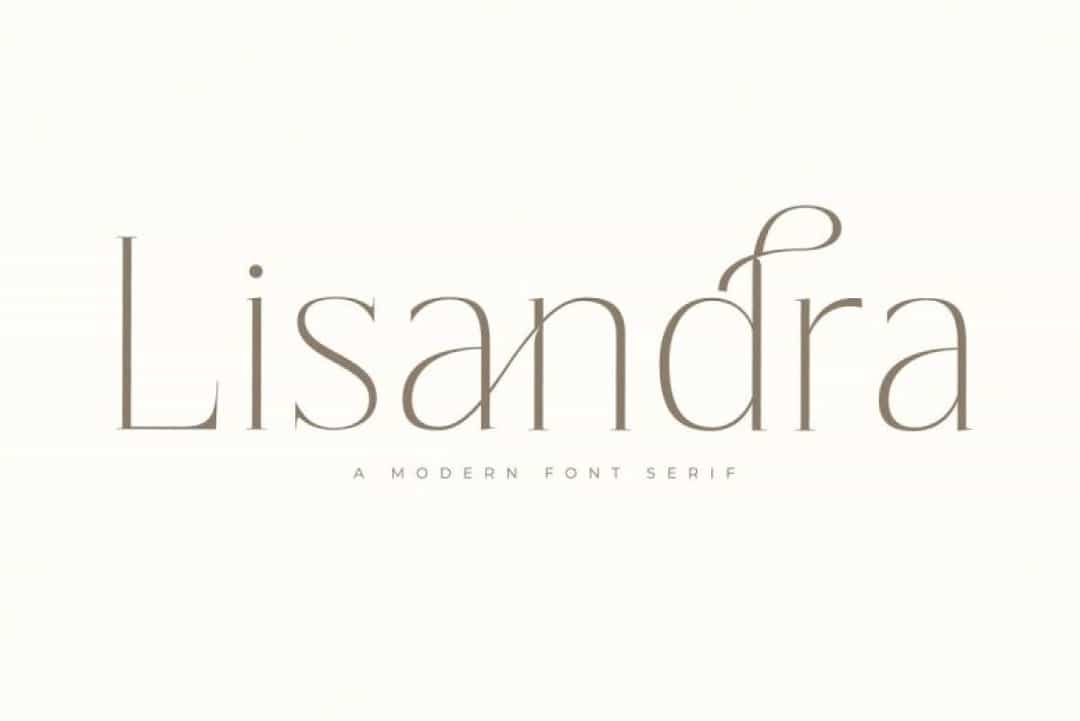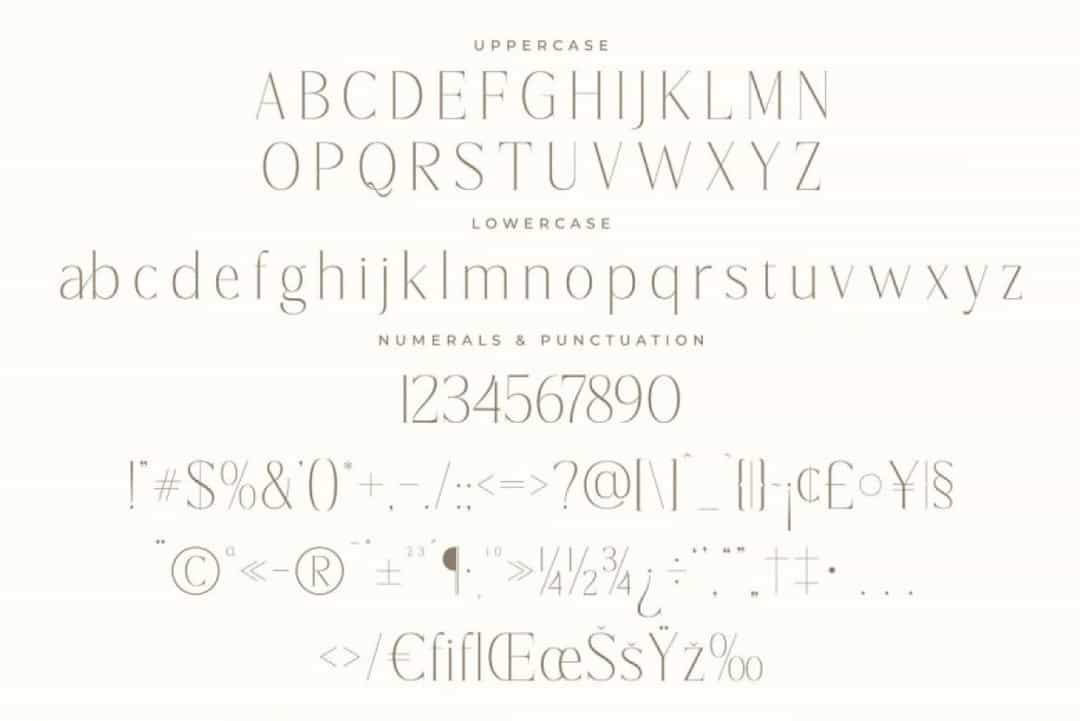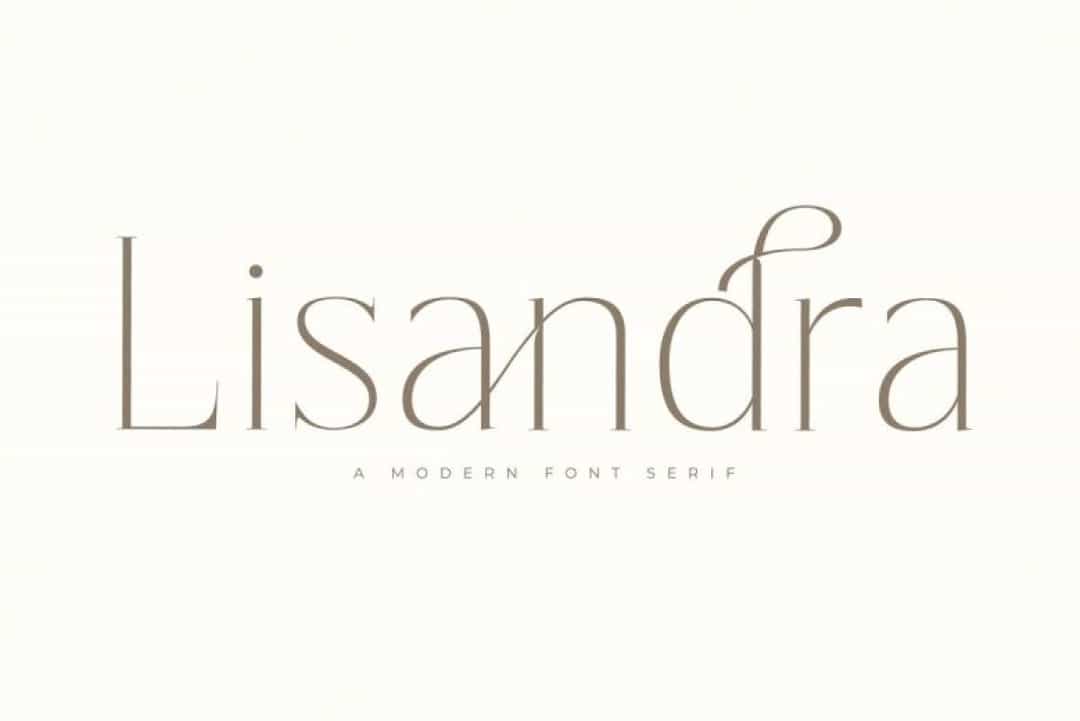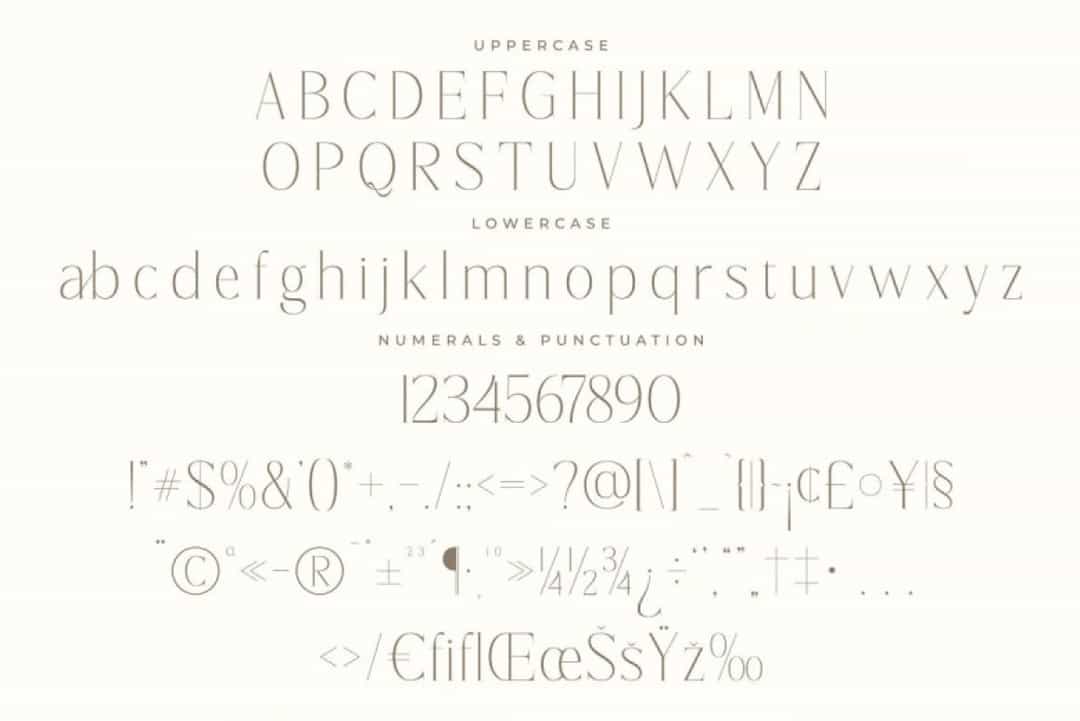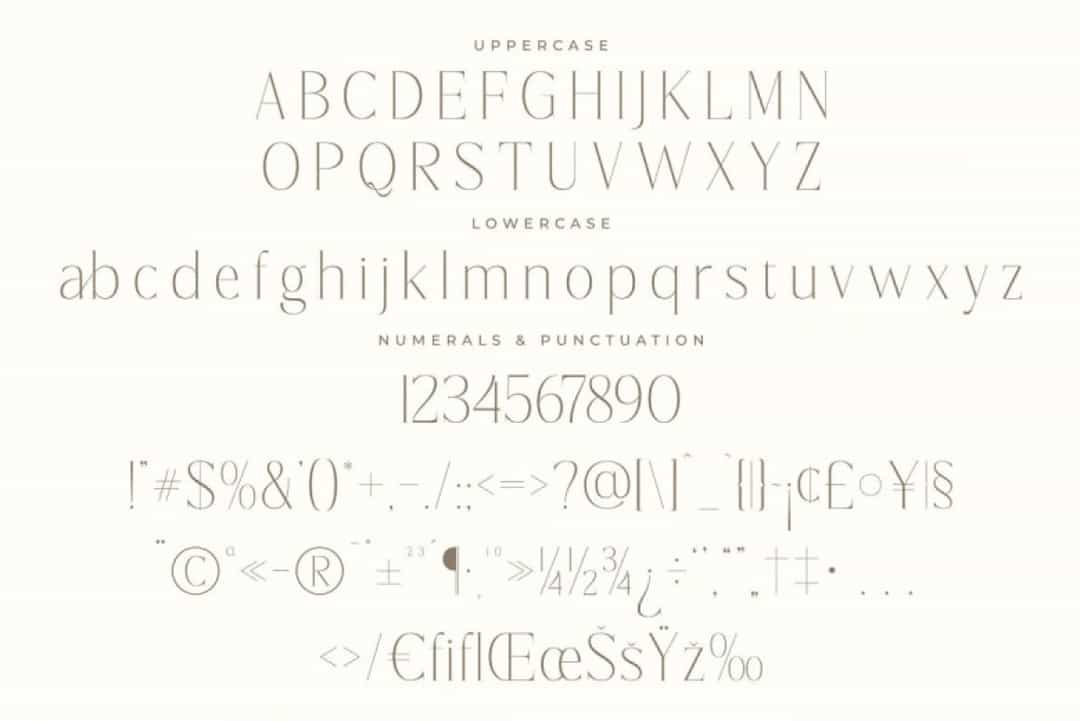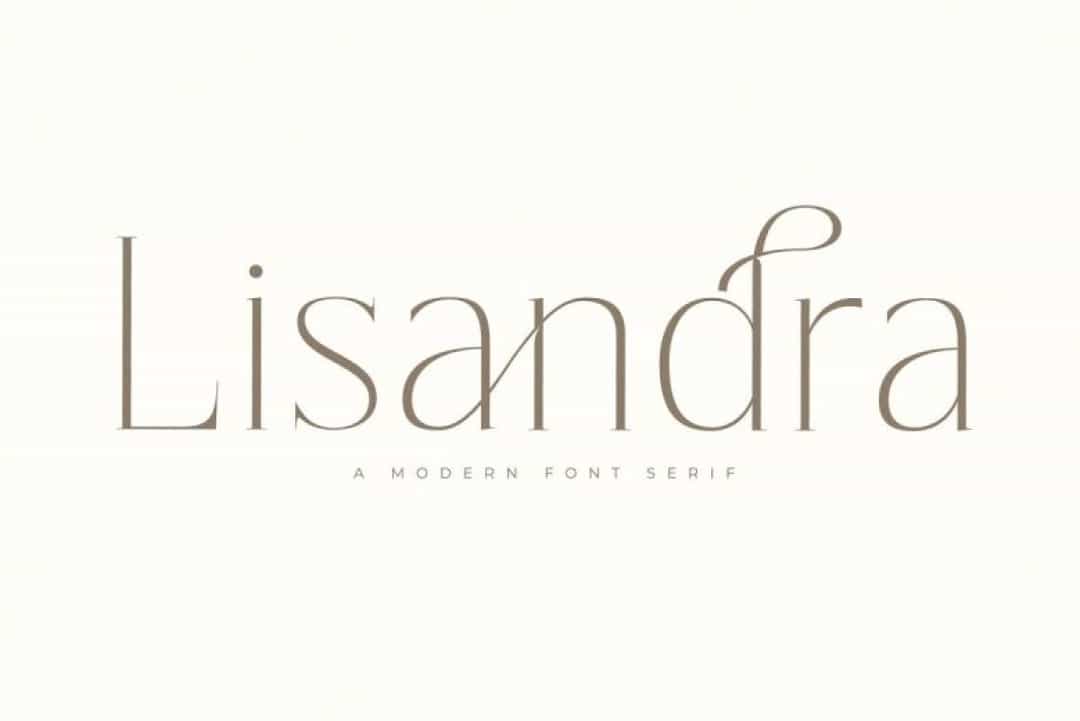
Lisandra Font, developed by Storytype, is a sophisticated yet timeless serif font. This typeface offers its own distinct style and modern appearance – ideal for luxurious logos, book or movie titles, clothing brand logos, magazines letters quotes and many other uses.